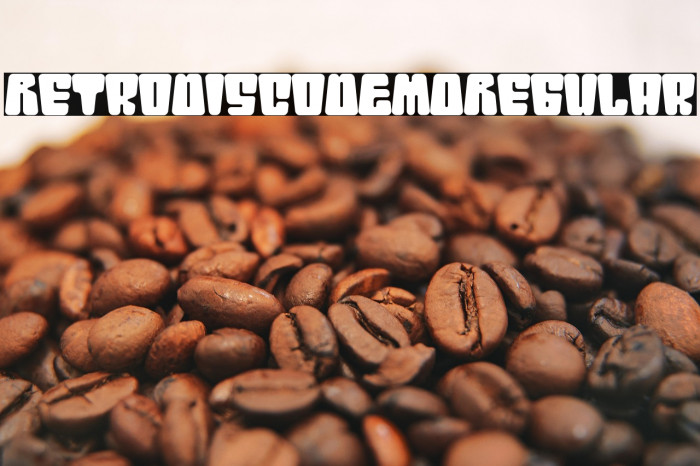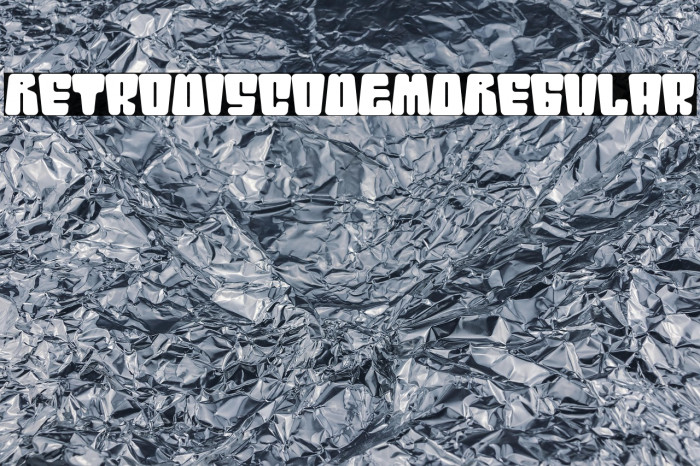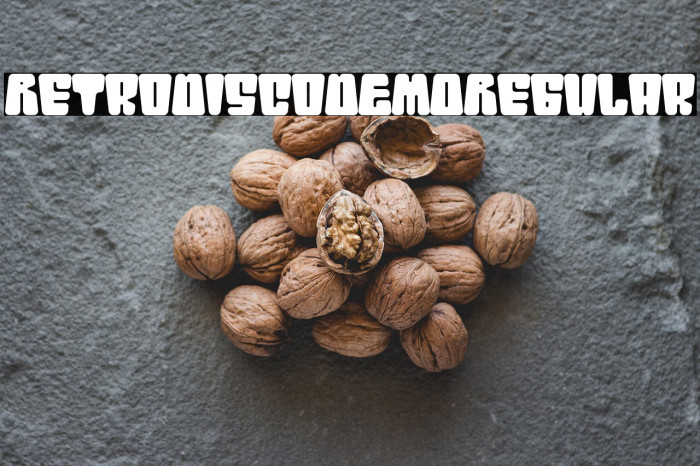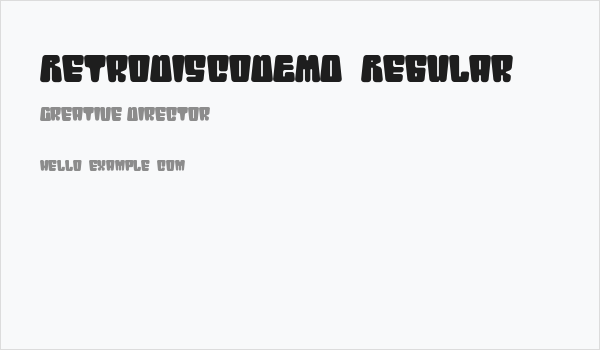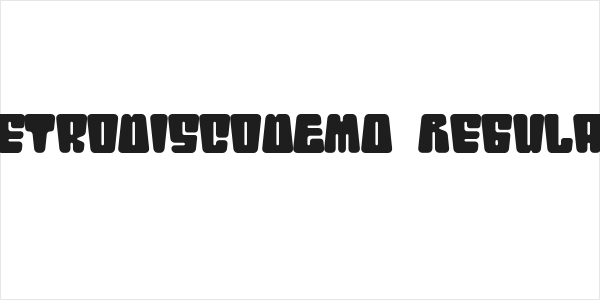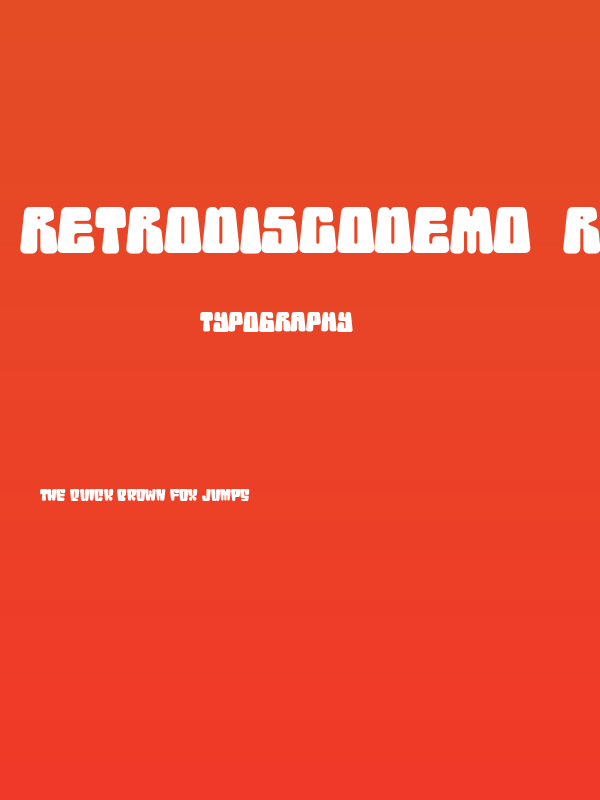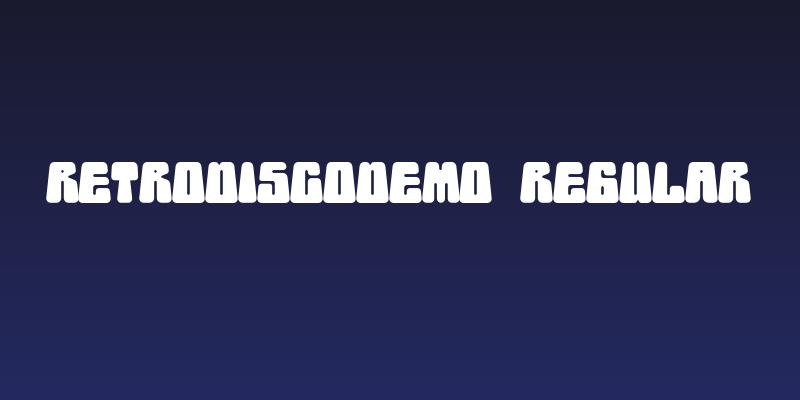
RetroDiscoDEMO-Regular Font
RetroDiscoDEMO-Regular Description
This font features a bold and playful design with a distinctly retro aesthetic. The characters are chunky and rounded, with a strong presence that evokes a sense of nostalgia for disco and pop culture of the past. The letters are uniformly wide, giving the typeface a consistent and balanced appearance. The boldness of the font makes it highly legible, while the unique shapes of the characters add a fun and dynamic element. This font is perfect for projects that aim to capture a vintage or retro vibe, with its eye-catching and memorable style.
| Proposed Projects | Ideal for retro-themed posters, album covers, event flyers, and branding projects that require a nostalgic touch. |